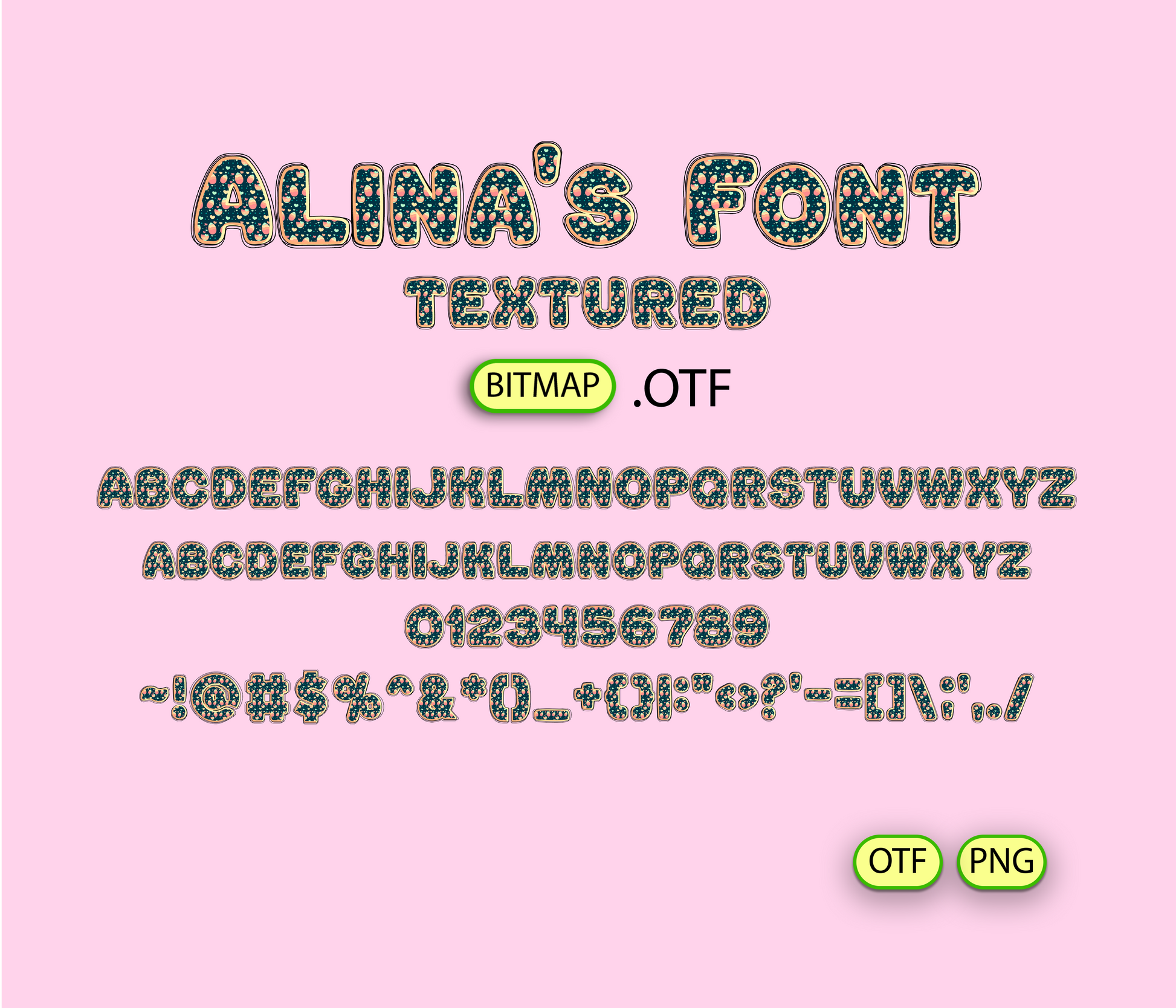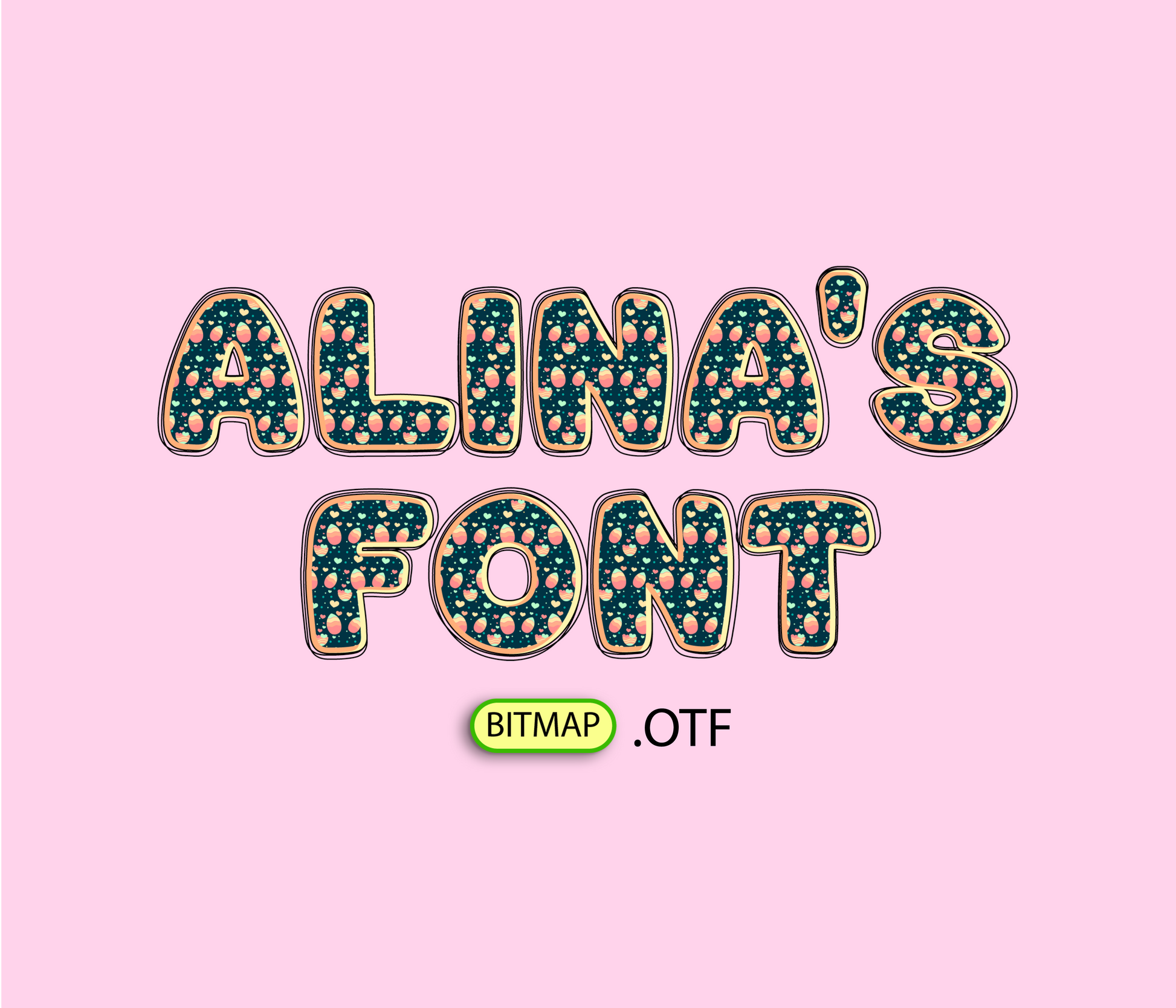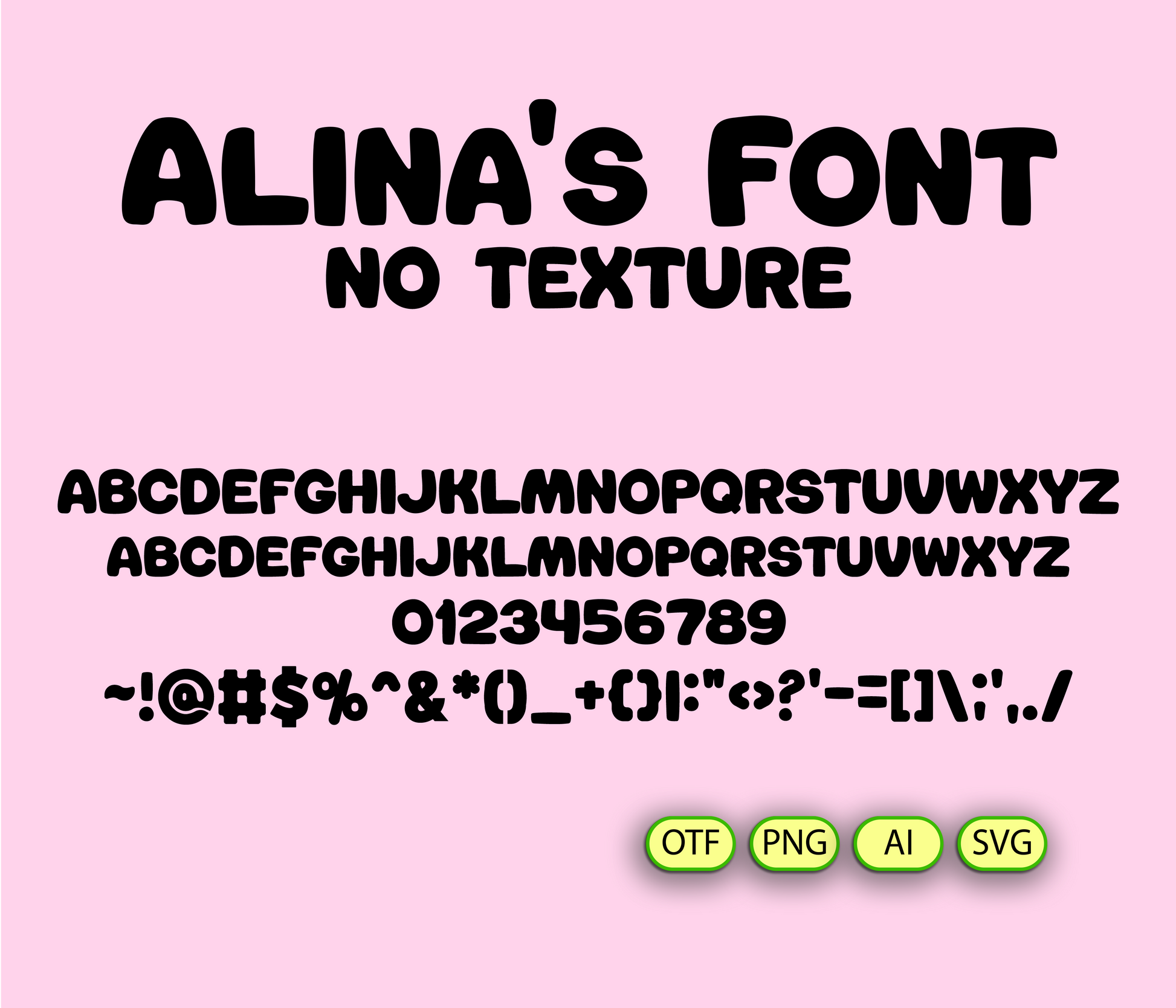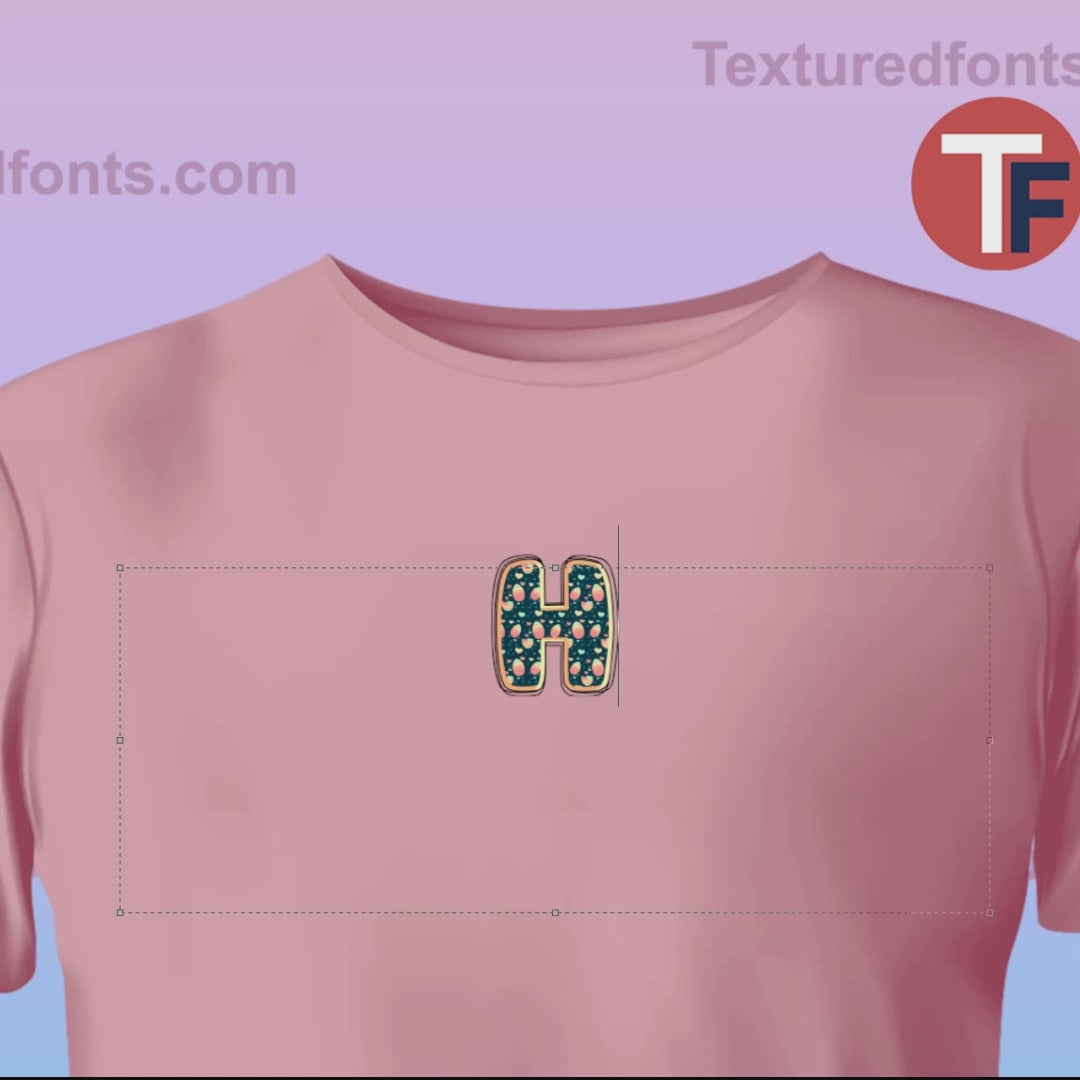
Bunny and Floral Typeface Easter Pattern Font
Discover the spirit of spring with our Easter font, a vibrant and joyful typeface that embodies the essence of the Easter season. This font is inspired by the themes of renewal, hope, and celebration that Easter brings, making it perfect for crafting festive invitations, engaging social media content, and heartwarming greeting cards. Whether you're announcing an Easter egg hunt, designing a spring-themed project, or simply spreading Easter cheer, our Easter font adds a touch of whimsy and freshness to your creations, capturing the lively atmosphere of the season.
Optimized for Canva, the Easter font allows users of all design backgrounds to seamlessly incorporate the joy and brightness of Easter into their digital designs. This font is a versatile choice for anyone looking to convey messages of rebirth and joy, ensuring your Easter-themed projects stand out with style and creativity, from digital banners to printed flyers.
To cater to the diverse needs of our users, we've included a no-texture version of the Easter font, ensuring compatibility across all software and making it a flexible option for a wide range of design needs. This adaptability allows the Easter font to be effortlessly integrated into both digital and print mediums, offering a clean and polished look that's perfect for any Easter project. Featuring a comprehensive character set and a user-friendly design, the Easter font is accessible to everyone, inviting users to infuse their projects with the essence of Easter. Whether you're creating promotional materials for an Easter event, personalizing your Easter messages, or adding a seasonal touch to your designs, our Easter font, complete with its no-texture variant, enriches your creations with the spirit of spring and the joy of Easter.